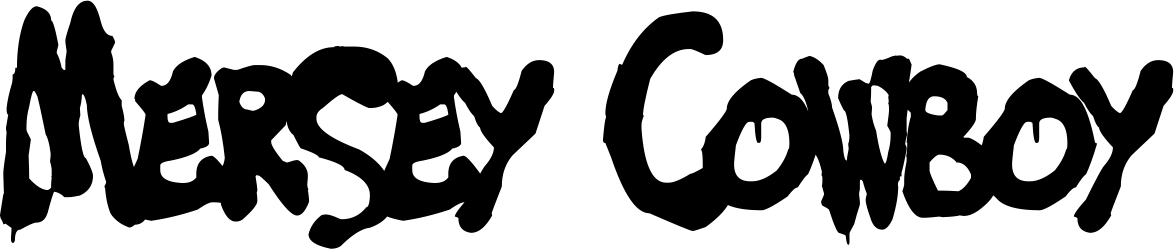
Mersey Cowboy Font
Designed byChequered Ink
If you are going to evoke a sense of clutter, imbalance, risk-taking, and excitement in your audience, Mersey Cowboy could be the right font and meet your requirements. The mixture of lowercase and uppercase letters of this graffiti font which is designed in a grunge style can add variety and innovation to graphic works such as video game posters and movie banners.